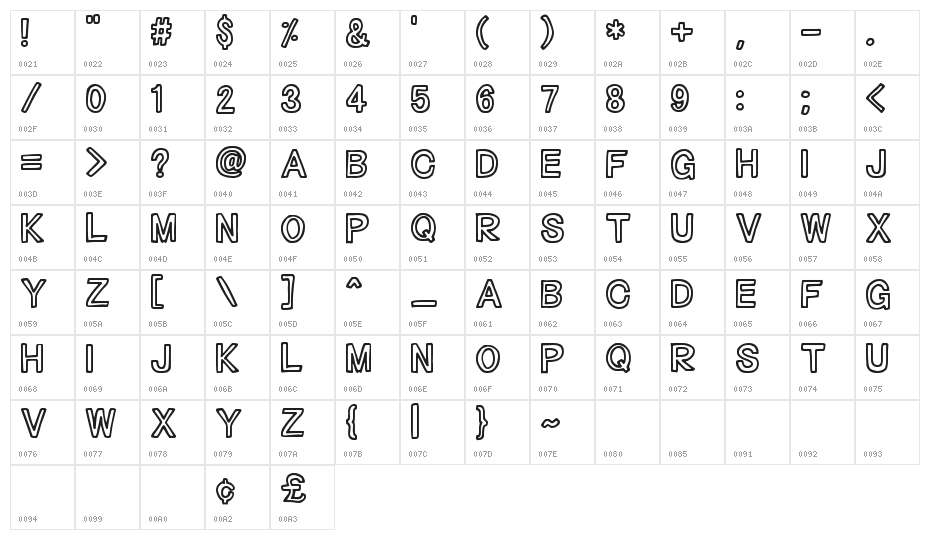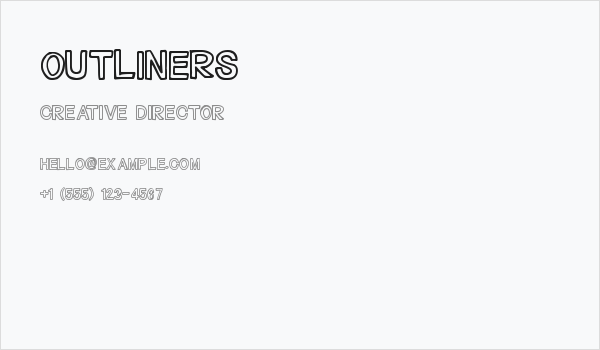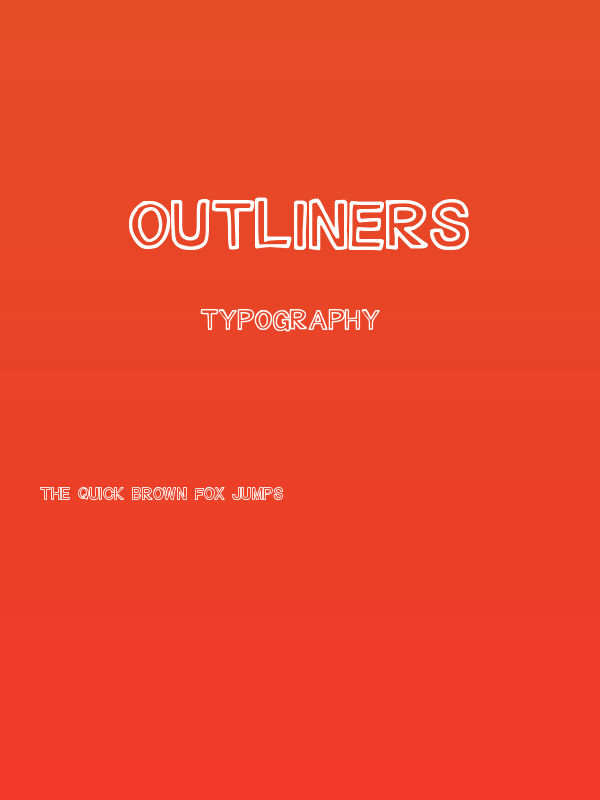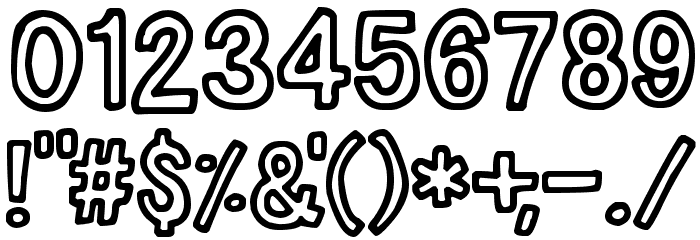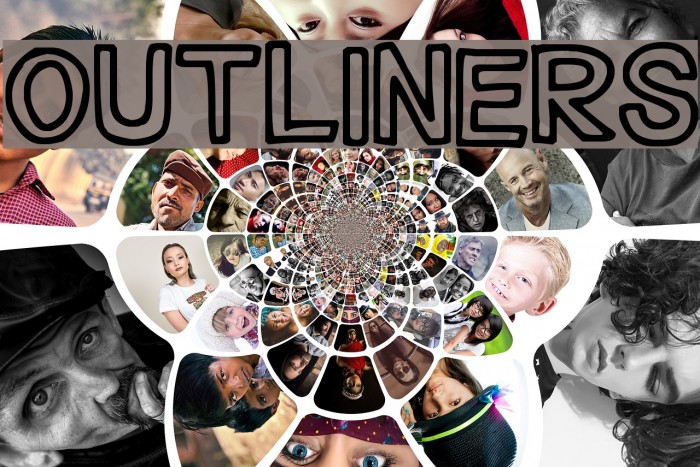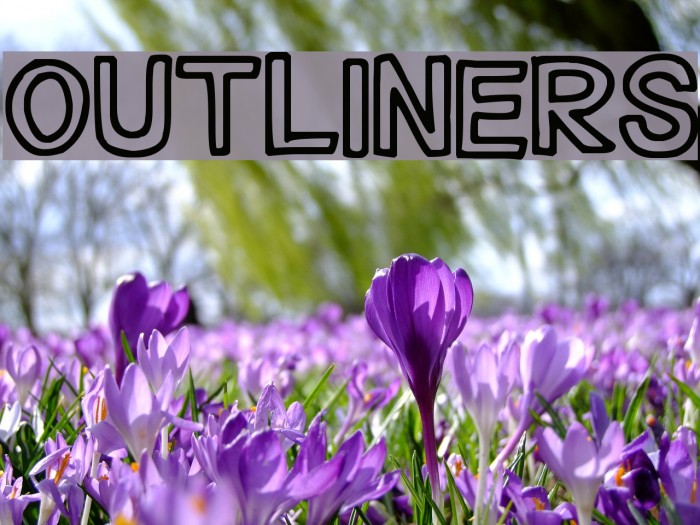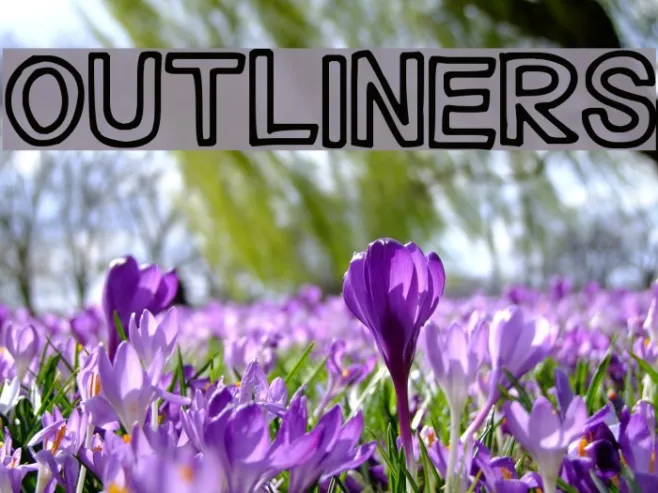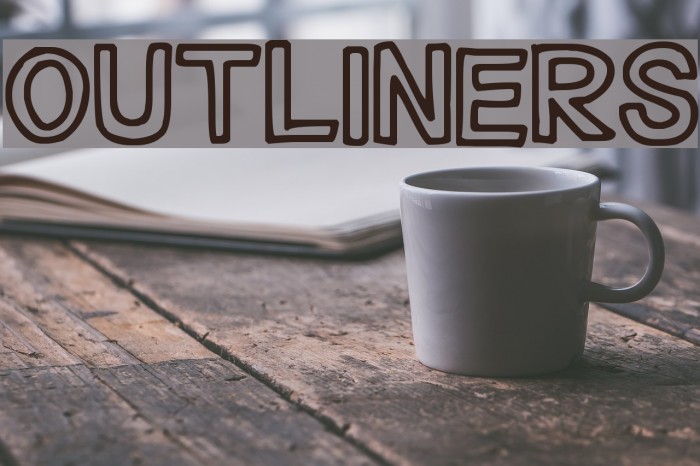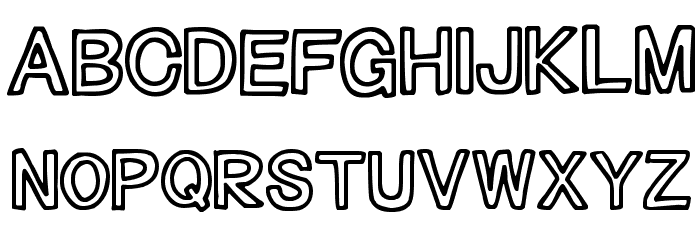
Outliners Font
Outliners Description
This font features a bold, outlined style that gives it a distinctive and eye-catching appearance. The characters are uppercase and lowercase letters, as well as numbers and a variety of special symbols. Each character is defined by a thick, consistent outline that creates a hollow effect, making it ideal for designs that require a strong visual impact. The uniformity in the outline thickness across all characters ensures a cohesive look, while the rounded edges add a touch of softness to the overall design. This font is versatile and can be used in various creative projects where a bold statement is needed.
| Proposed Projects | Ideal for posters, logos, headlines, and any design requiring a bold and impactful font. |